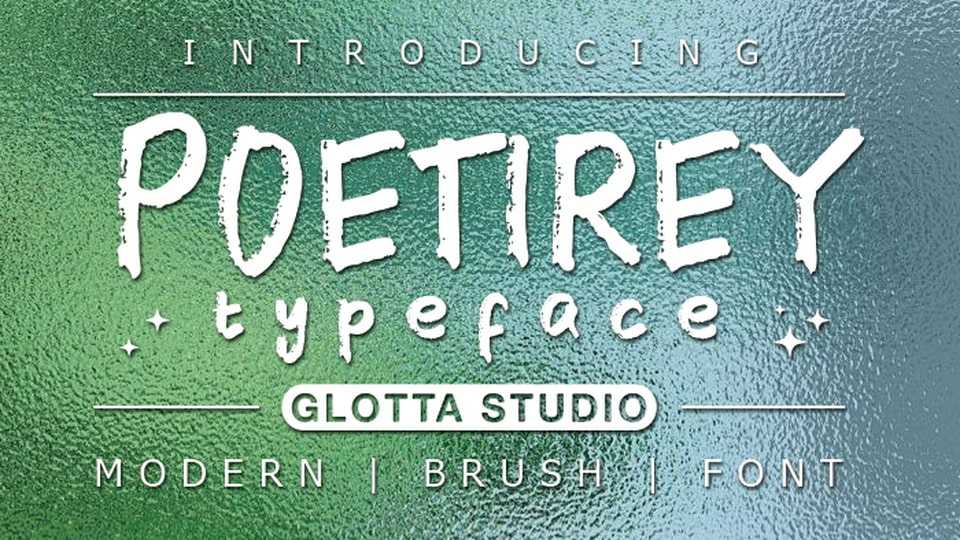
Download Poetirey font, a hand-lettered, textured brush typeface designed for projects that demand authenticity and a rustic, handcrafted touch. Poetirey takes your text on a journey through the artistry of brushwork, making it perfect for projects that require a sense of raw, creative energy.